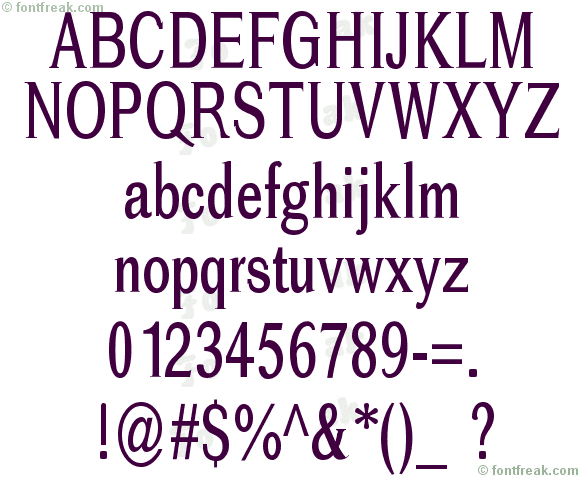
About Cheetah
The Cheetah font, designed by Dennis Palumbo in 1997, is a striking display typeface that combines modern elegance with a playful twist. As a shareware font, it offers an accessible option for designers looking to add a unique flair to their projects. This font features a bold stroke weight with a moderate contrast that enhances legibility while maintaining a dynamic appearance. The careful spacing between letters provides a sense of harmony and balance, making it suitable for various applications.
Visually, the Cheetah font stands out with its sleek, rounded edges and a slightly condensed structure. This gives it an energetic yet polished look, perfect for grabbing attention. The decorative elements are subtle yet effective, allowing the font to convey a sense of motion and excitement. As such, it is particularly well-suited for creative use cases like movie posters, where it can evoke a sense of drama, or restaurant menus that aim for a modern and inviting atmosphere. Additionally, Cheetah is a fantastic choice for branding materials, particularly for businesses in fashion or lifestyle sectors, as it communicates both style and approachability.
The target audience for the Cheetah font includes graphic designers, small business owners, and content creators who seek a distinctive typeface that can elevate their visual communication. Its versatility makes it a great fit for various design projects, from promotional materials to social media graphics.
Overall, the Cheetah font stands out due to its unique combination of boldness and elegance. Its energetic character makes it a compelling choice for anyone looking to make a statement in their design work. For those interested, a Cheetah font free download is available, allowing creators to explore its potential without any financial commitment.